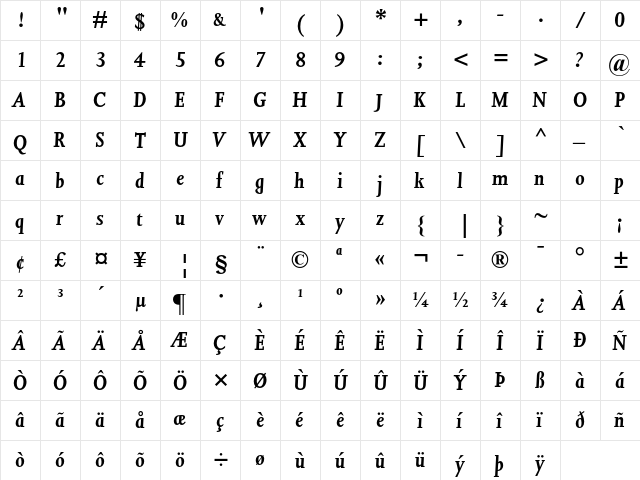
Joanna MT Std Bold Italic Font Preview
Joanna MT Std Bold Italic
| Designer | Eric Gill |
Design Context for Joanna MT Std Typeface
Joanna MT Std takes a measured approach to typography — its balanced proportions and neutral character make it a reliable workhorse for both digital and print work. The dynamic lean of this cut emphasises speed and emphasis in any layout. The heavy weight commands attention and anchors typographic hierarchies.
Pro Tip: Use Joanna MT Std for emphasis, pull quotes, and subheadings where its slanted energy can add rhythm to the layout.